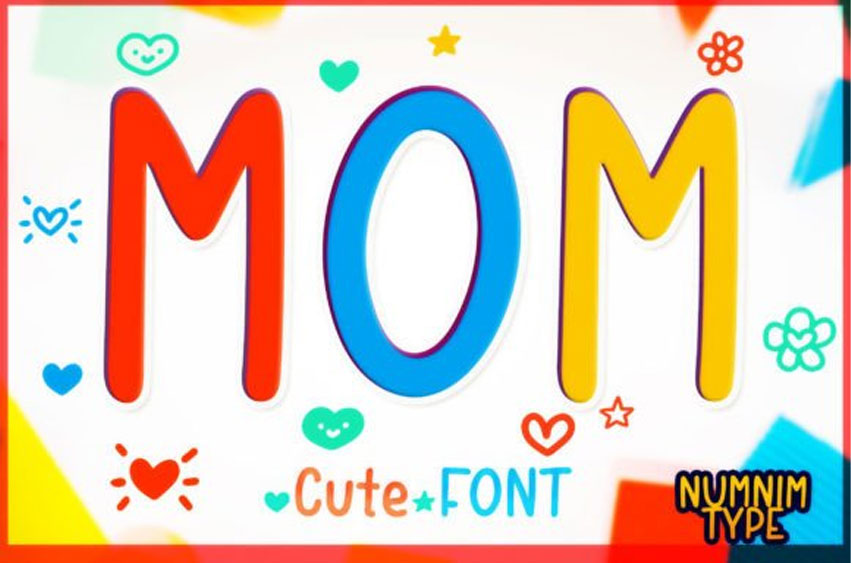
Mom Font is a handwritten font with a vibrant, joyful feel. Its fun and playful characters make it the perfect font for stickers, mugs, t-shirts, ornaments, Mother’s Day event cards, and more!